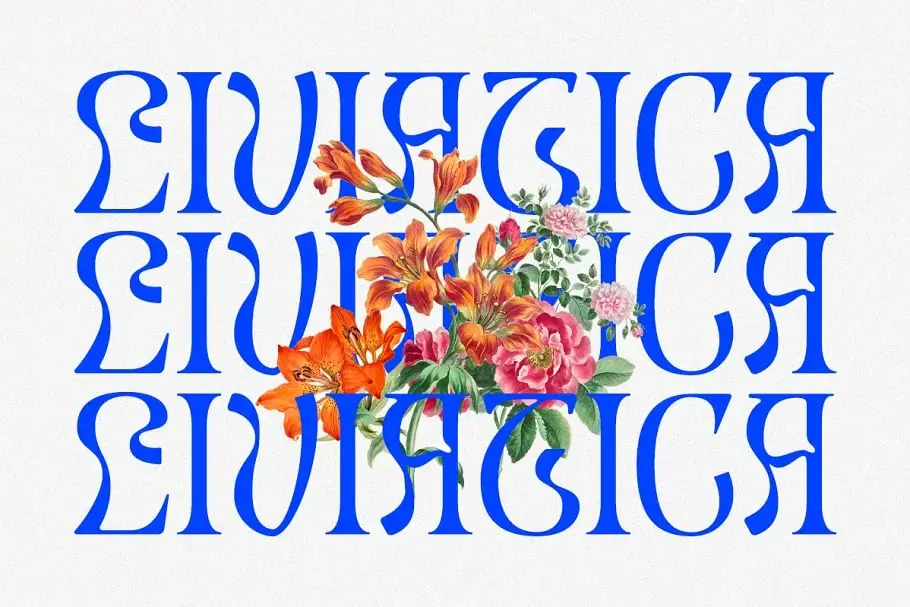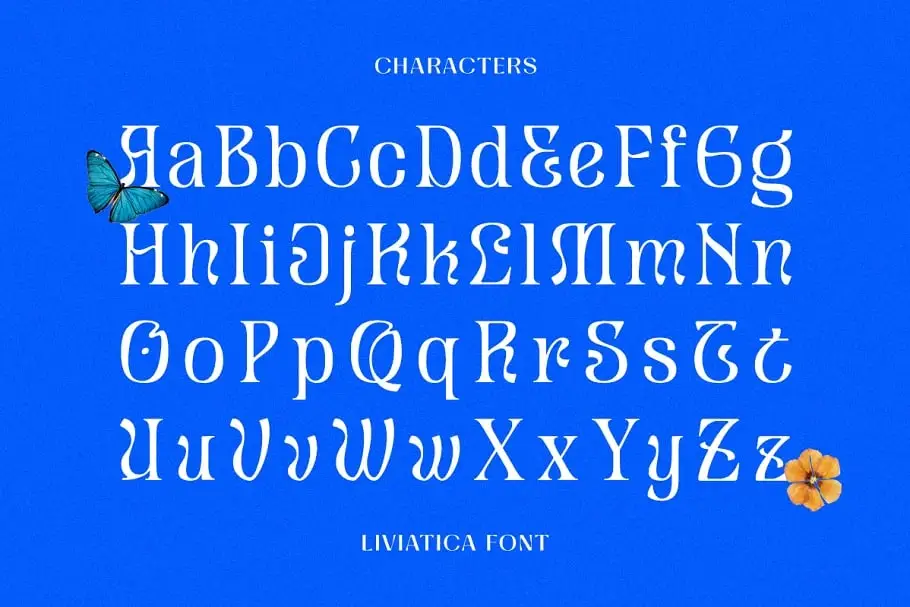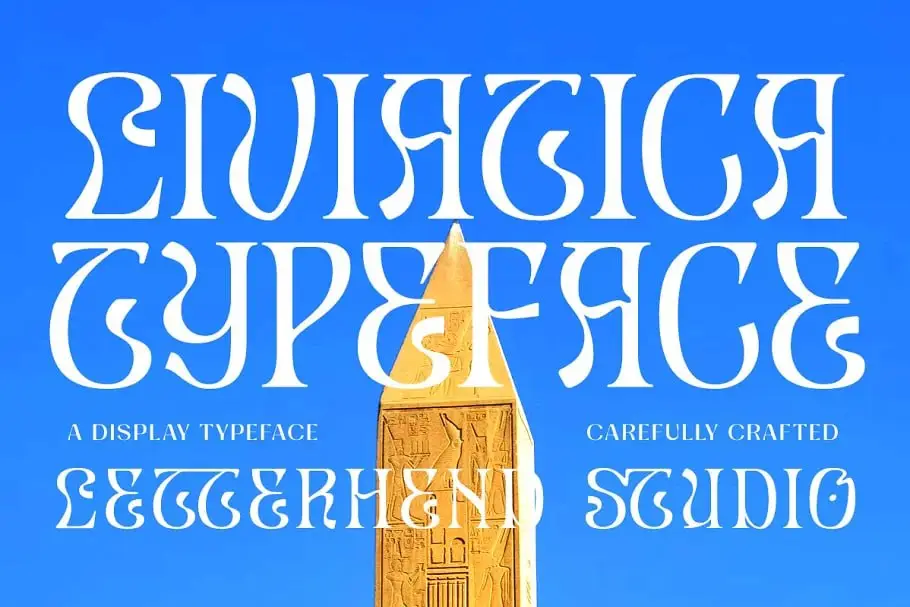
Liviatica-Display Font
Introducing the Liviatica Display Font, a stunning typeface designed to make your projects stand out. With its unique character and elegant curves, this font is perfect for a variety of applications, including branding, logos, web design, and print materials.
• Stylish display font with a modern aesthetic
• Multiple weights for versatile design options
• Uppercase and lowercase letters, numerals, and special characters
• Weight: Regular, Bold
Utilize Liviatica for eye-catching headlines, promotional materials, and any project where you want to convey a sense of style and sophistication.